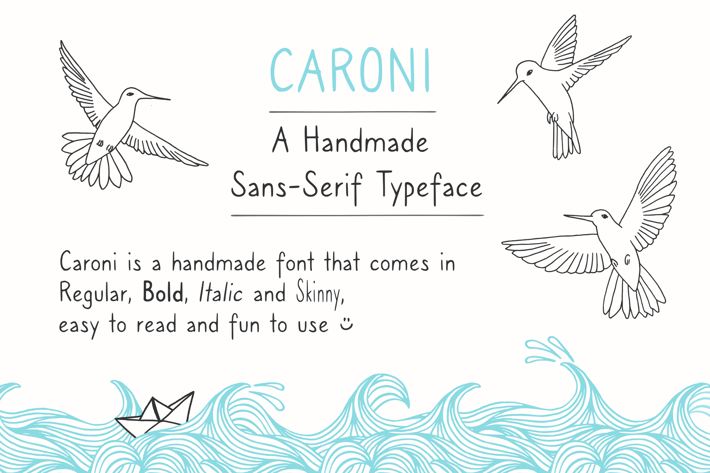
Caroni - A Handmade Typeface
Caroni is a handwritten font that was created for longer texts - it is therefore clean and easy to read, yet it'll give your projects that special, handmade touch.
Multilingual support is included for Western, Central and Eastern European languages.